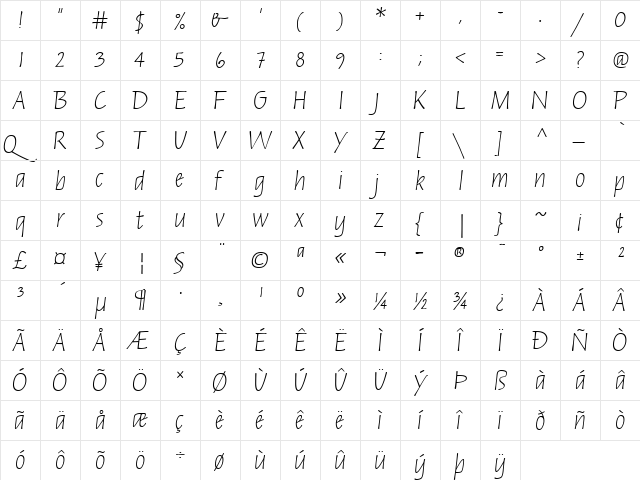
Russell Oblique
Design Context for Russell Typeface
Russell takes a measured approach to typography — its balanced proportions and neutral character make it a reliable workhorse for both digital and print work. The slanted form adds forward momentum and visual energy.
Pro Tip: Try Russell for annotation and caption copy alongside an upright companion — the contrast in angle creates a dynamic but ordered typographic system.